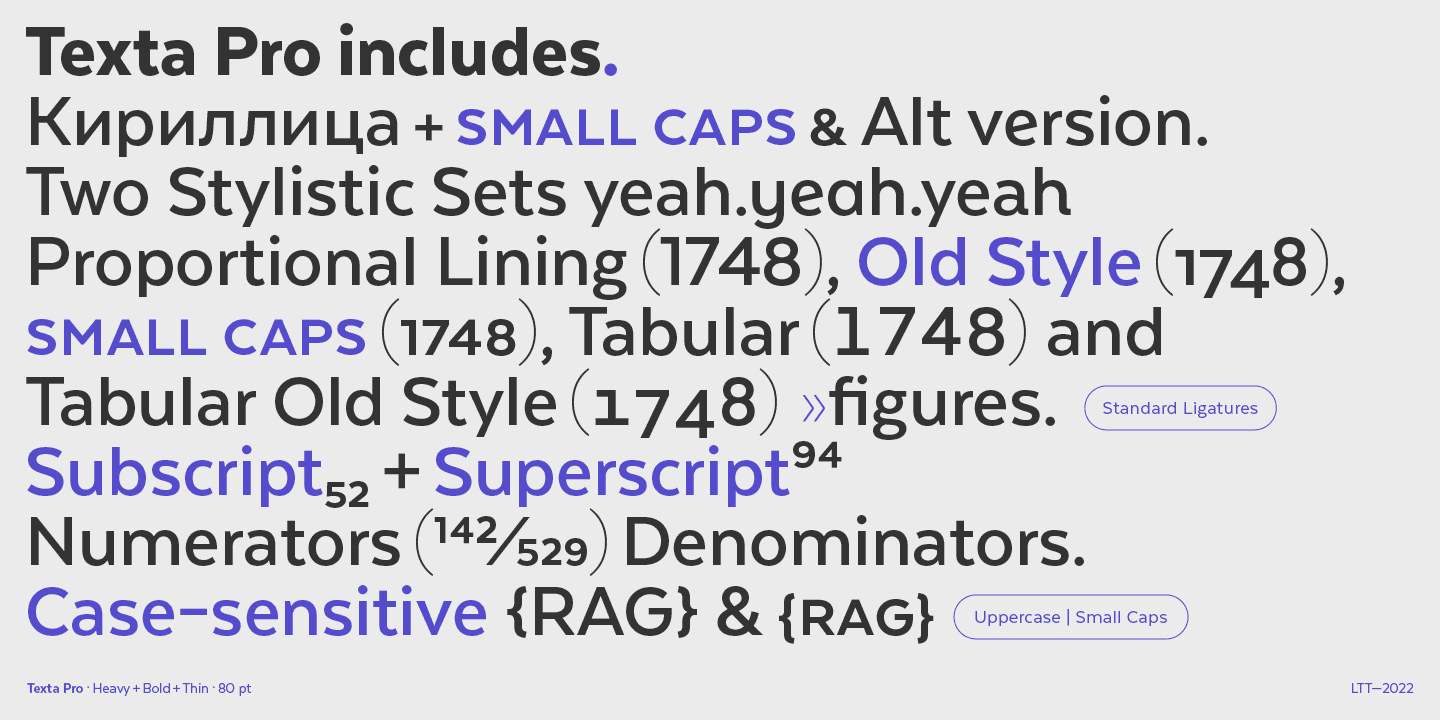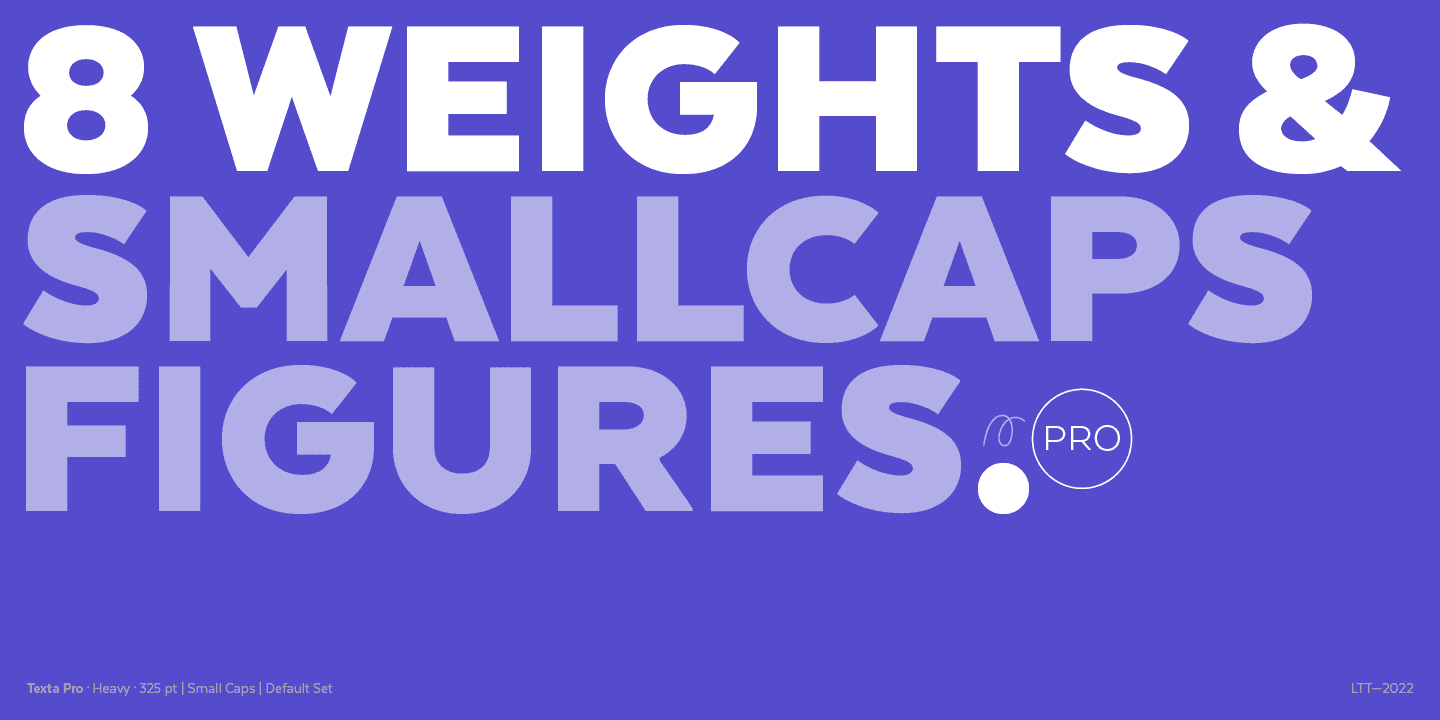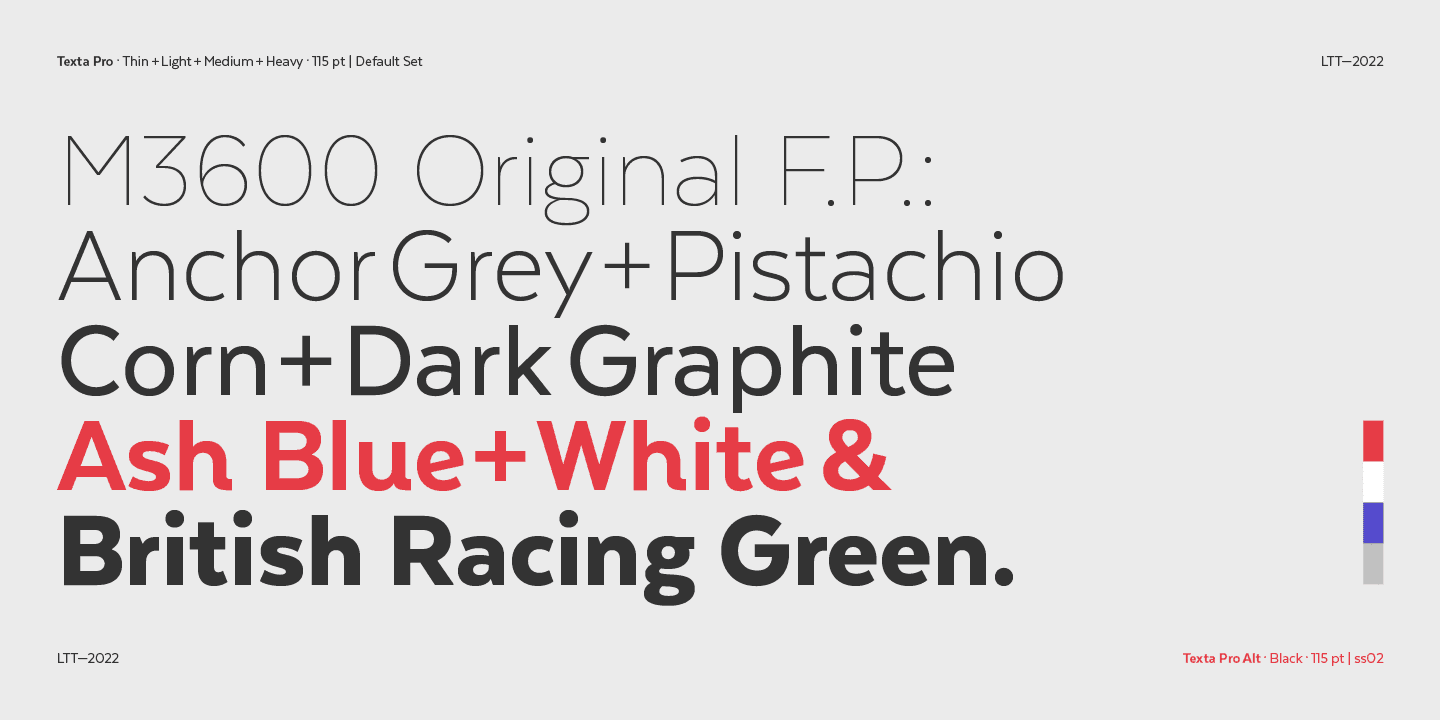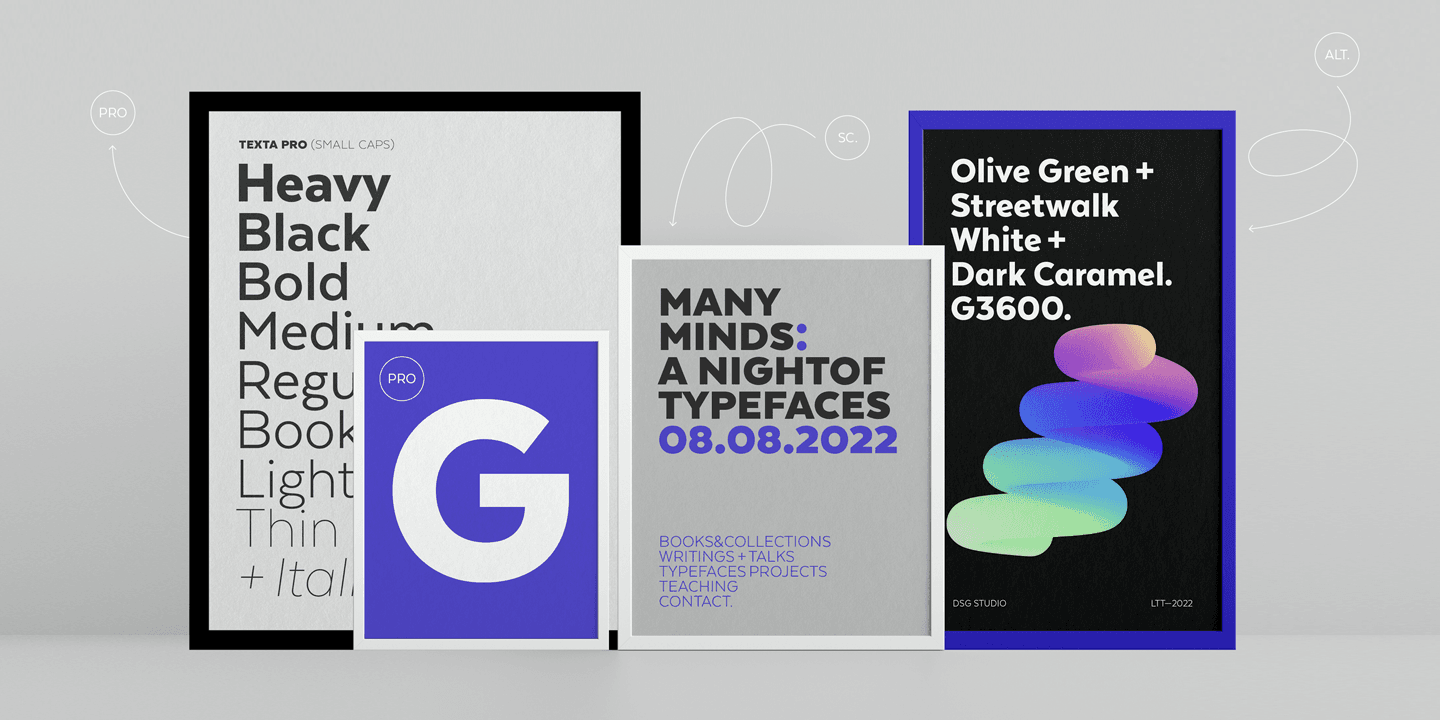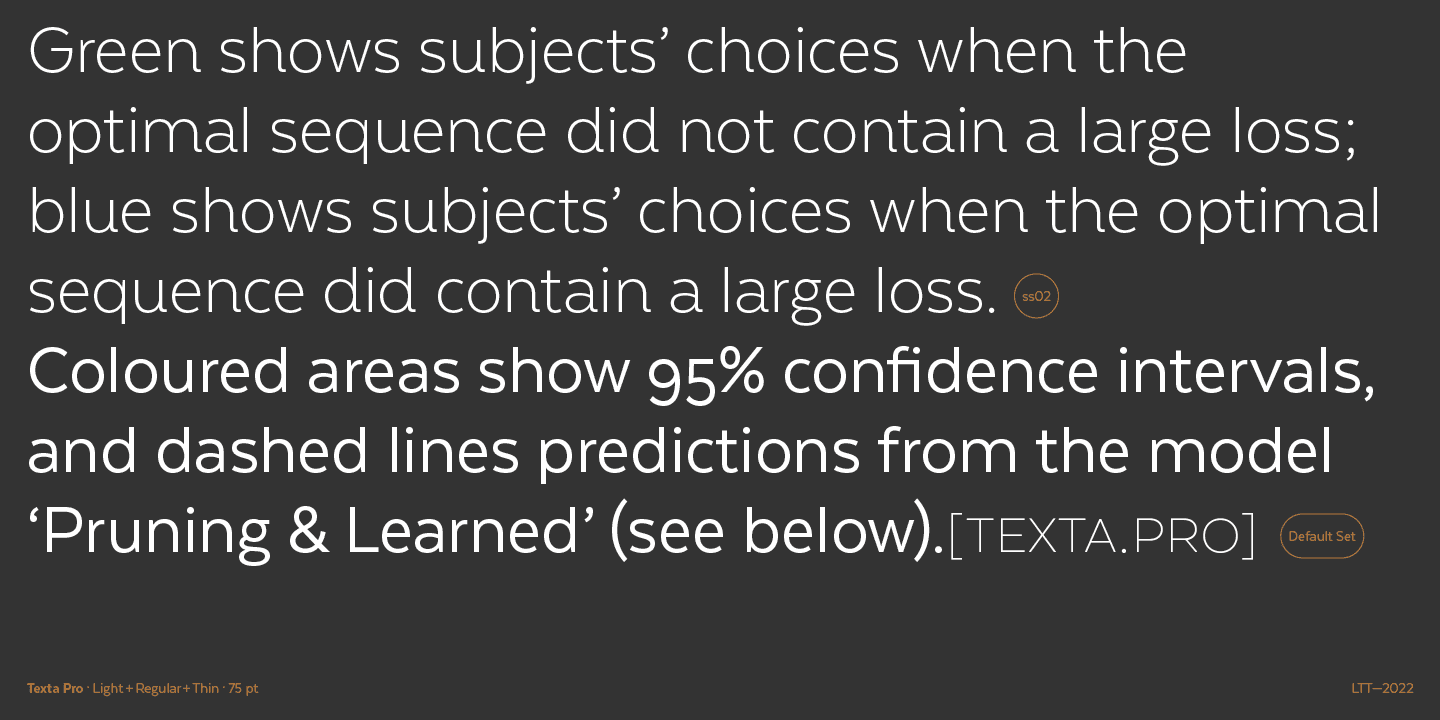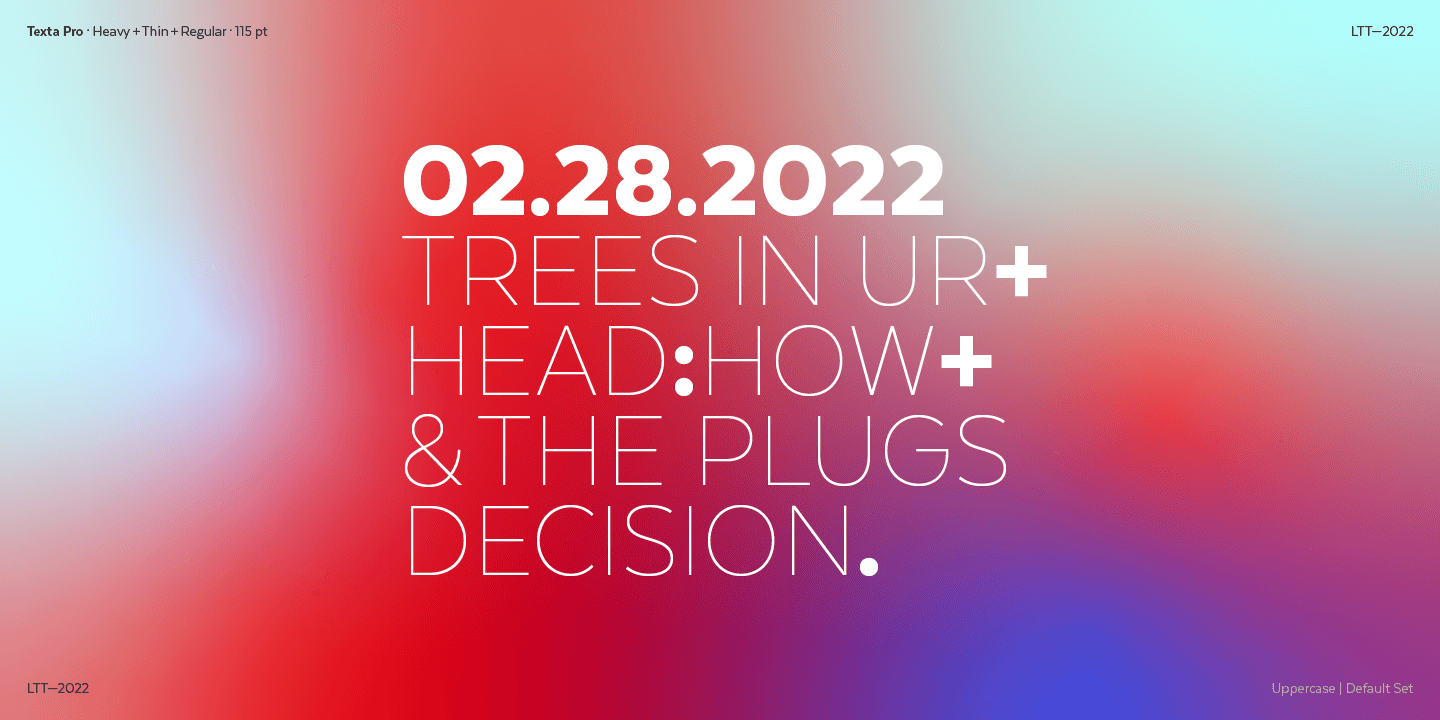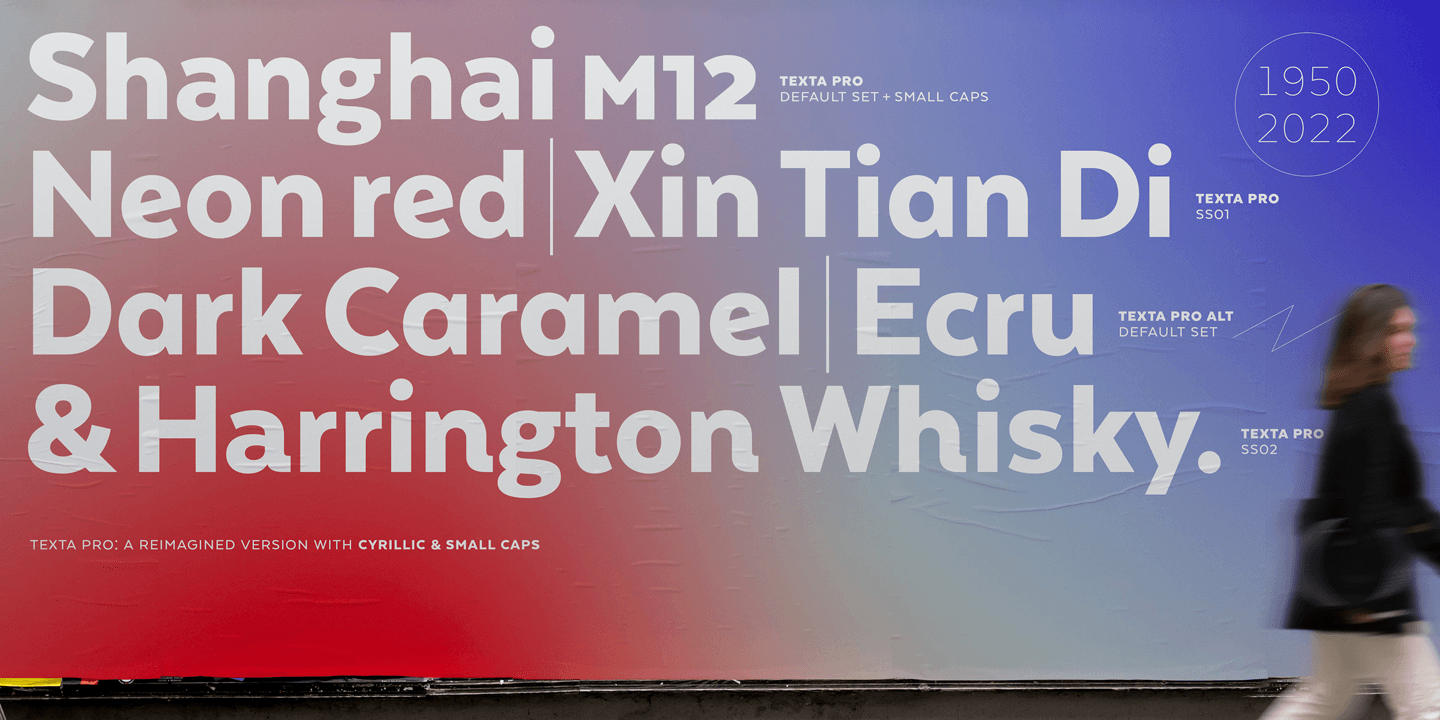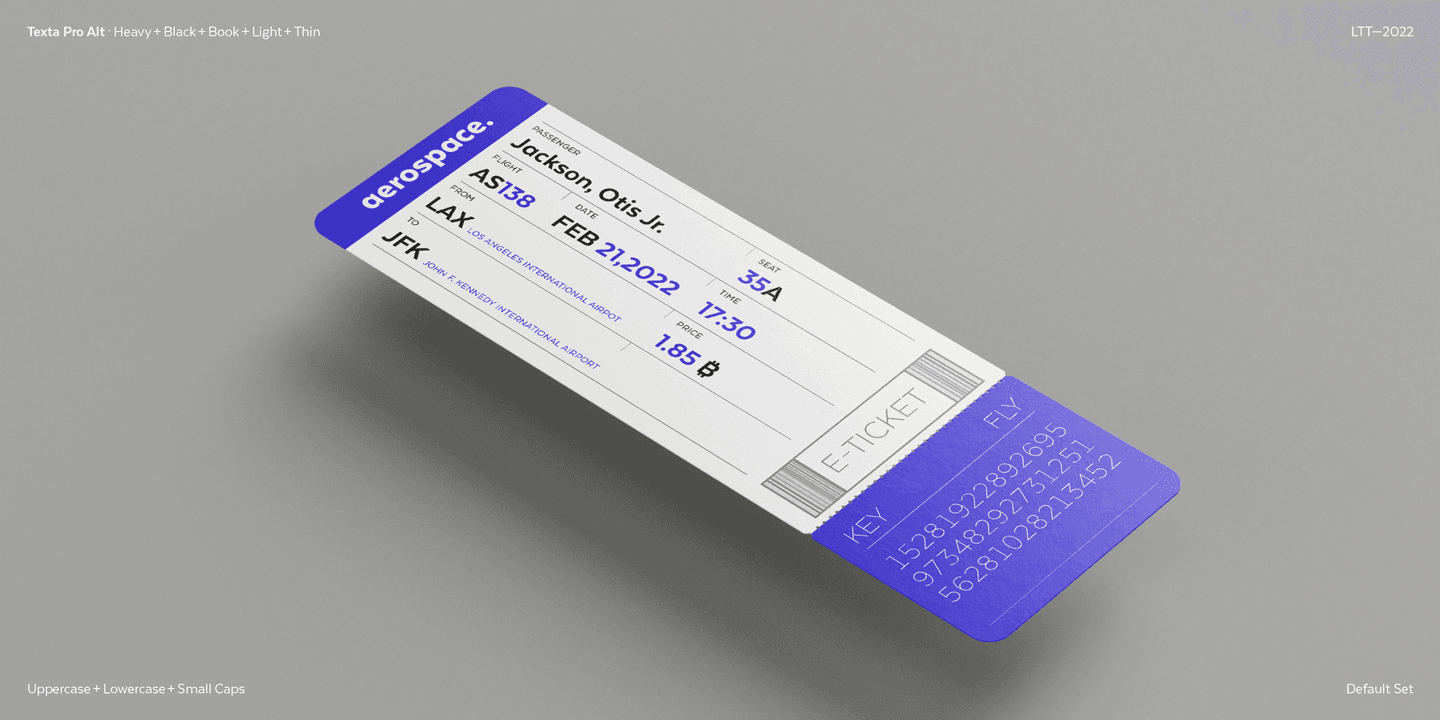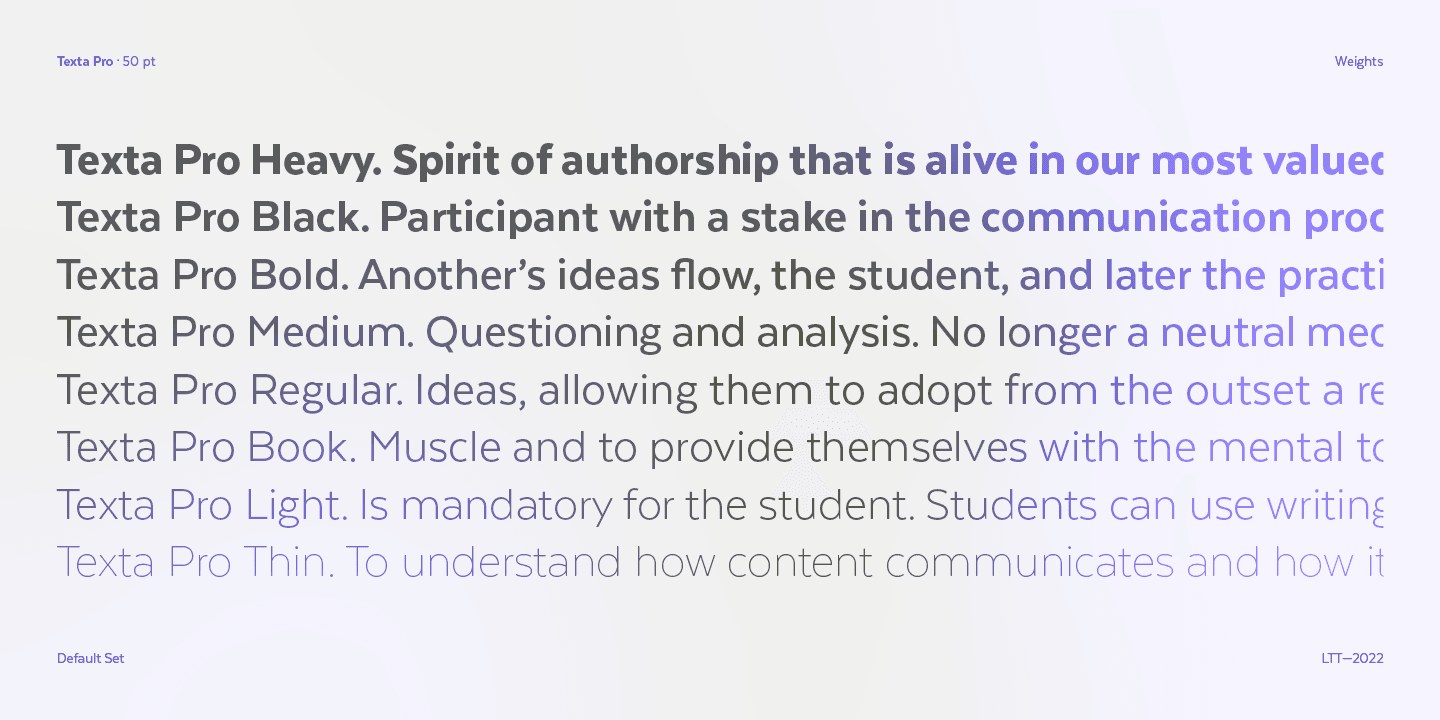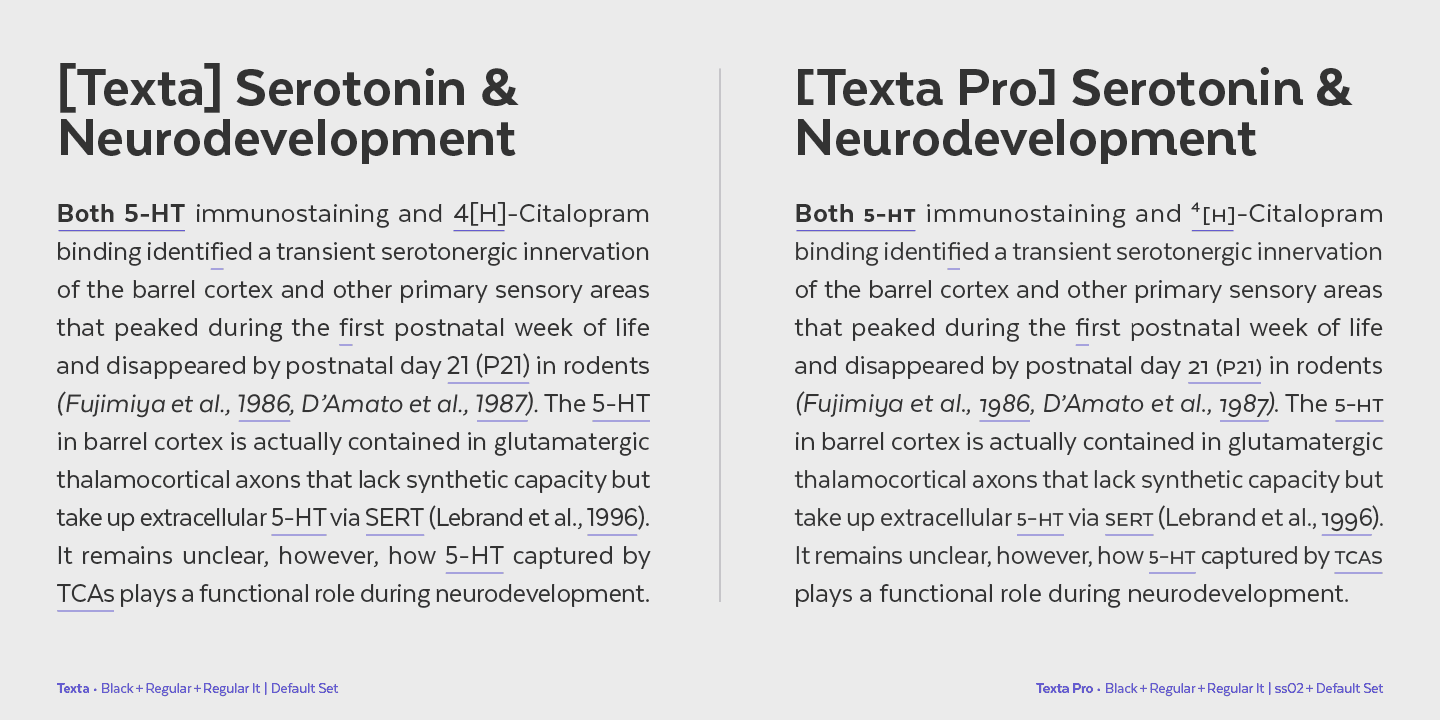
About Texta Pro Font Family Texta was born in 2014, is a collaborative project to research humanistic models from Edward Johnston to Adrian Frutiger. Texta Pro is a fresher design that gives certain impressions and is suitable for any design.
Texta Pro Font Family includes 983 glyphs, 487 more glyphs than the update, new ligatures, number sets with versions: higher, lower, denominator, numbered, more modern. Added new fractions, sets of signs are case sensitive.
Texta Pro includes more than 30 styles, fonts suitable for many designs such as headers, text or any design that needs a modern, simple and easy to use font.